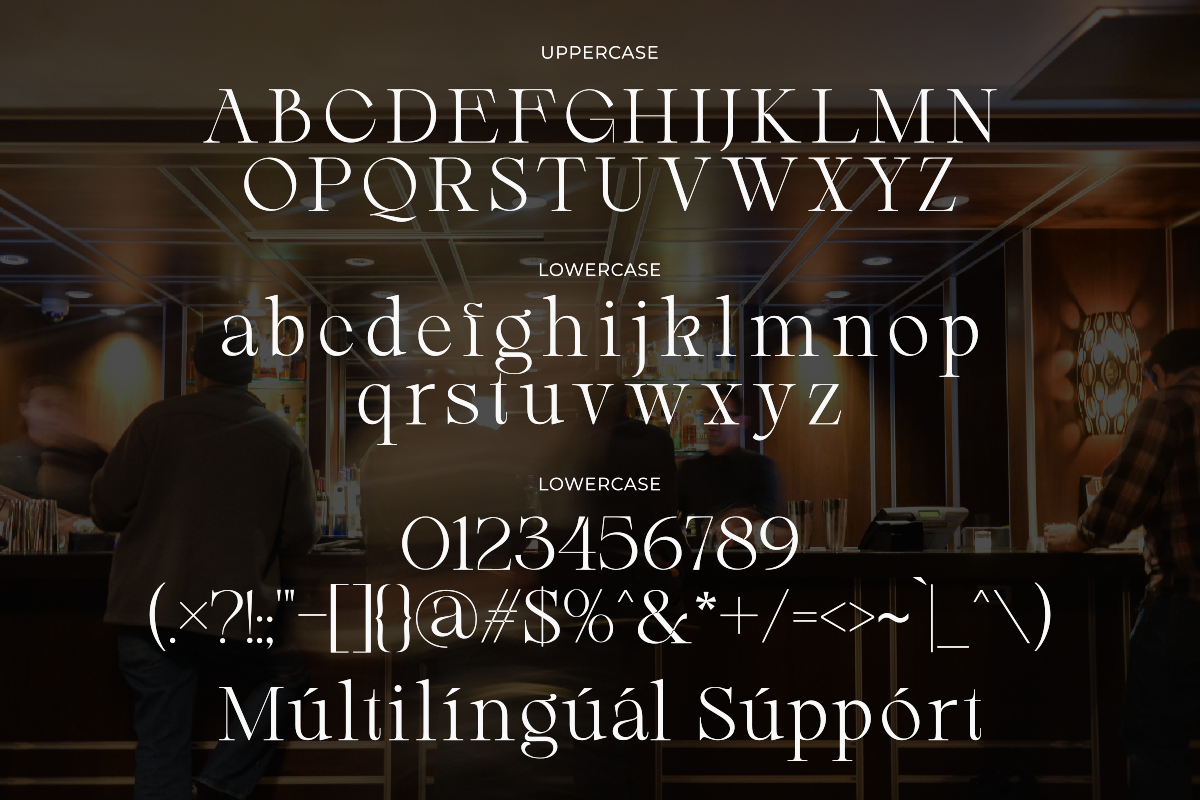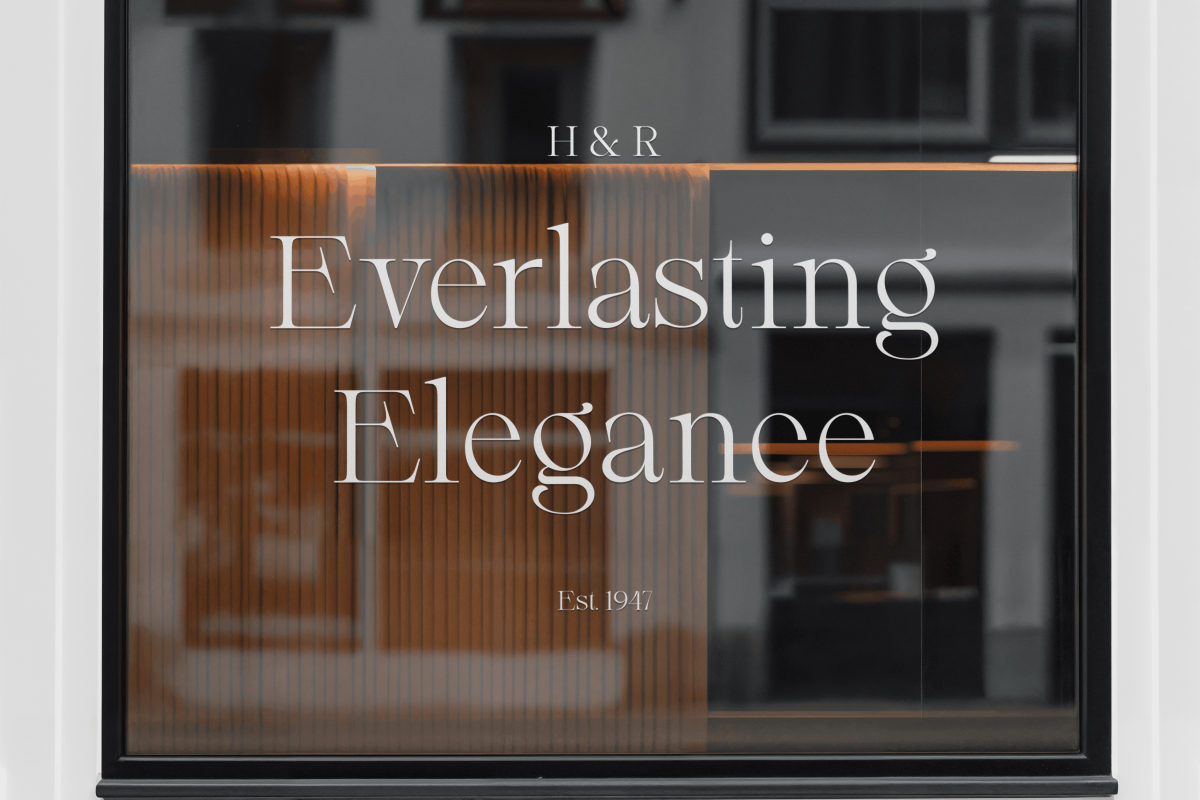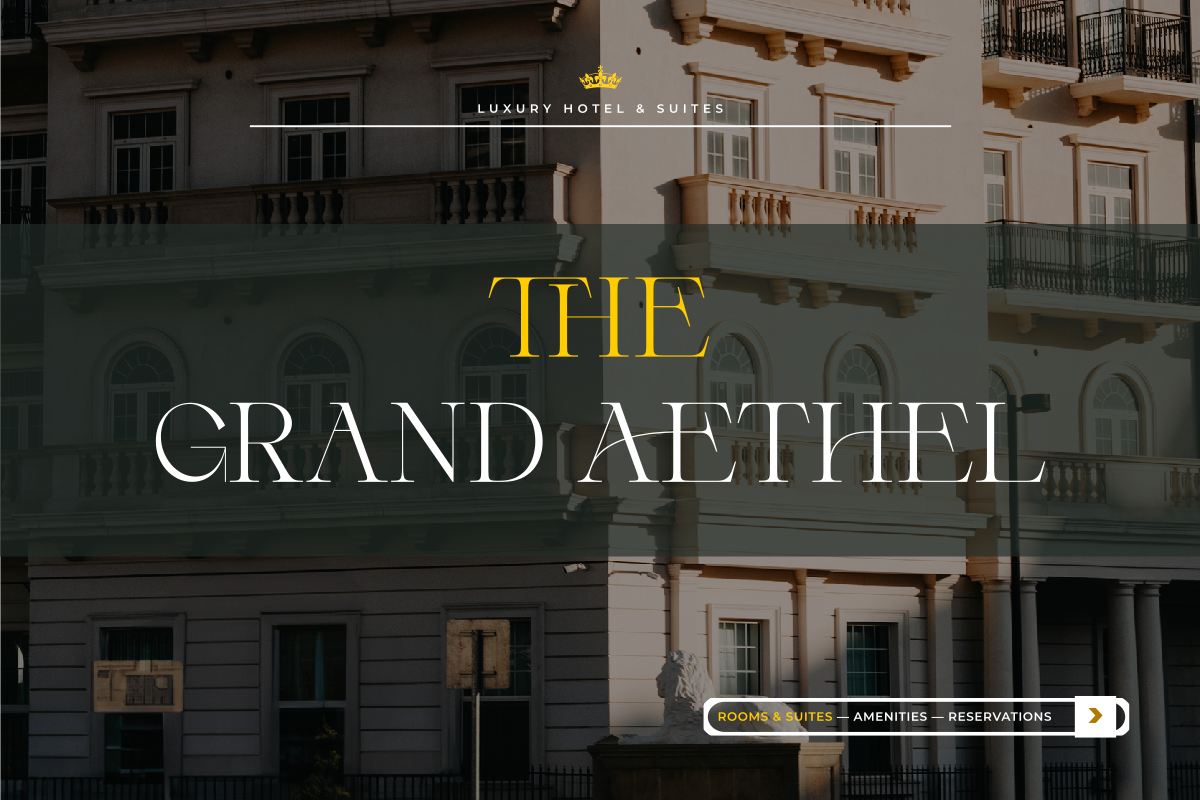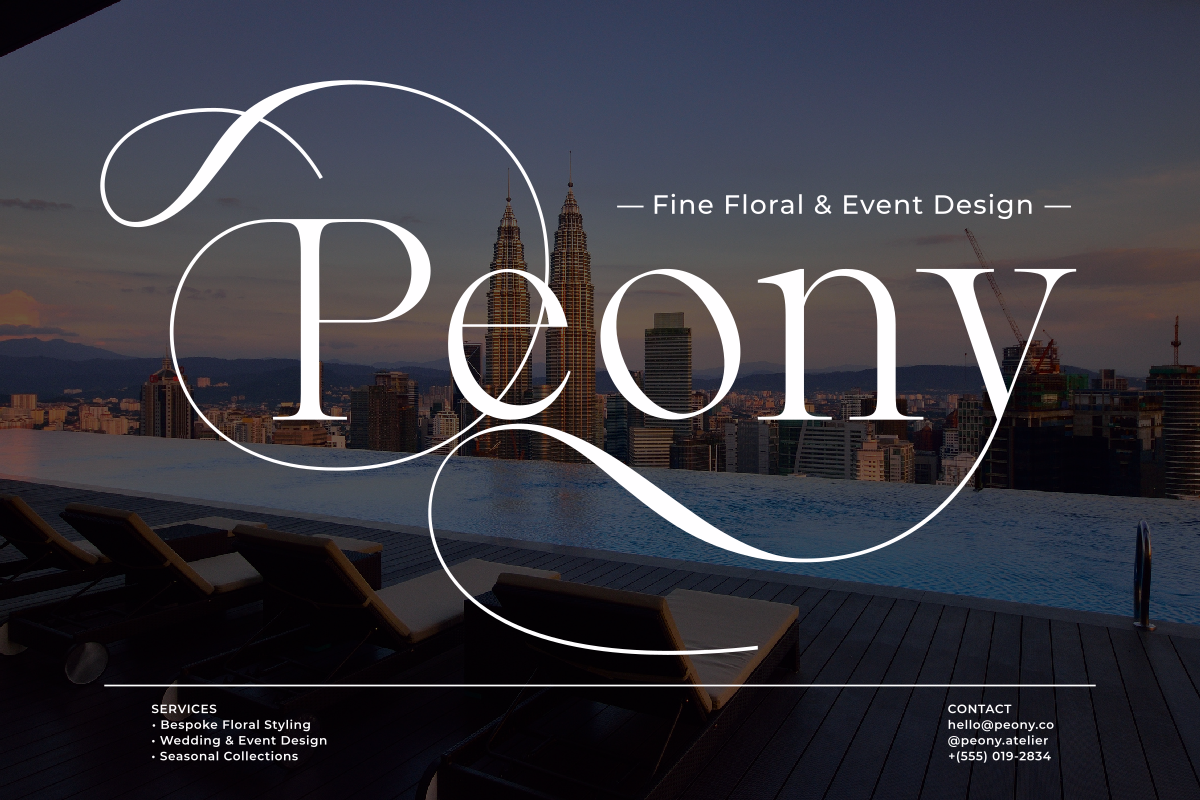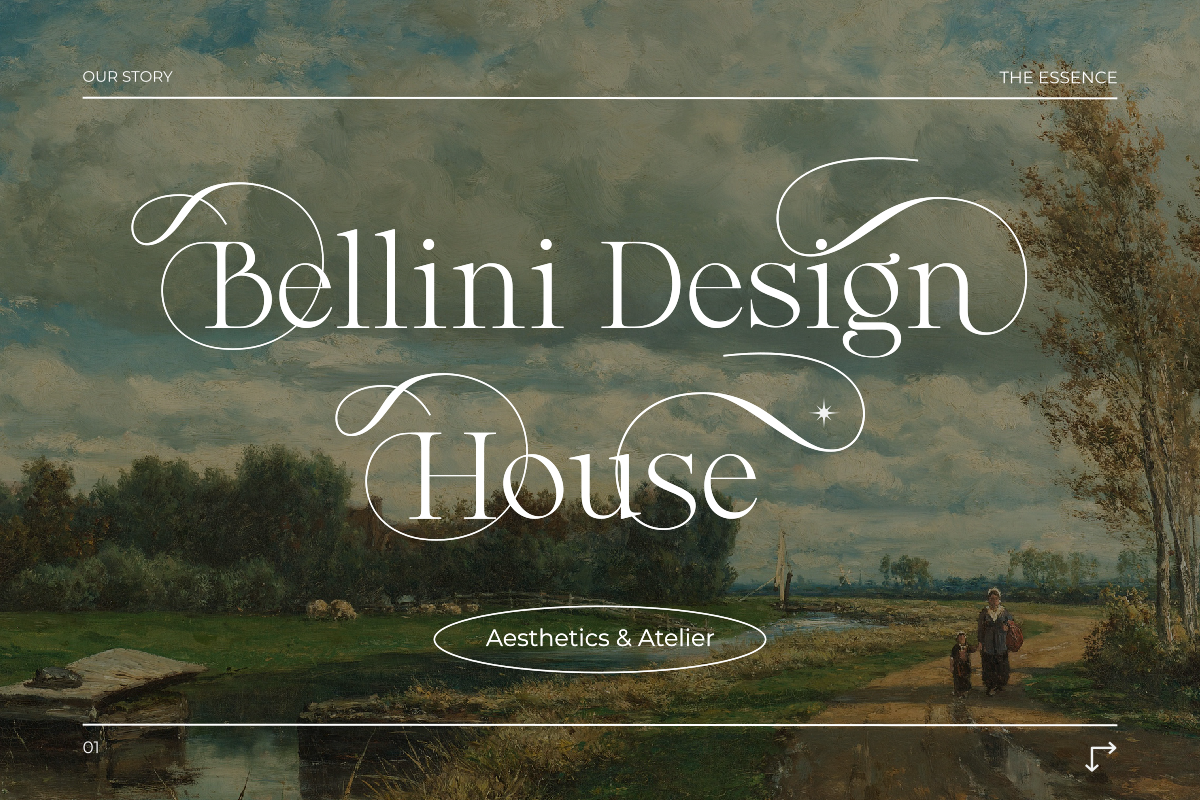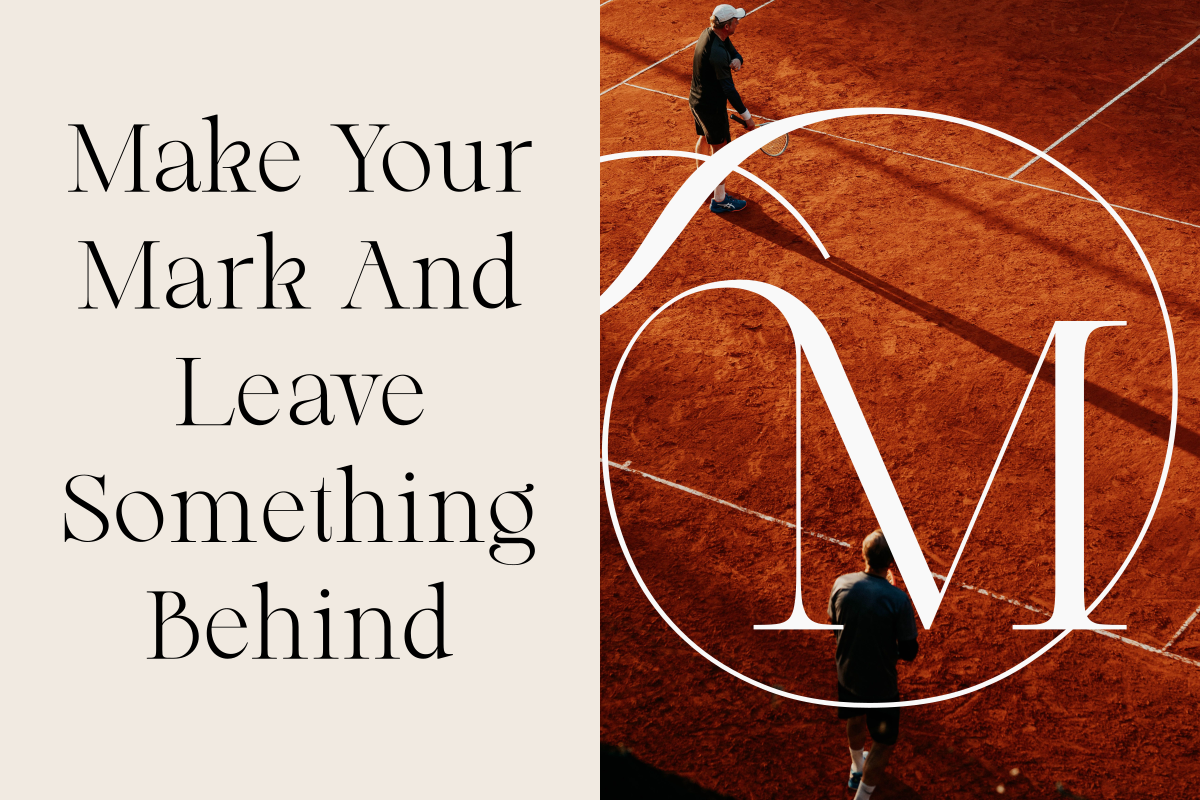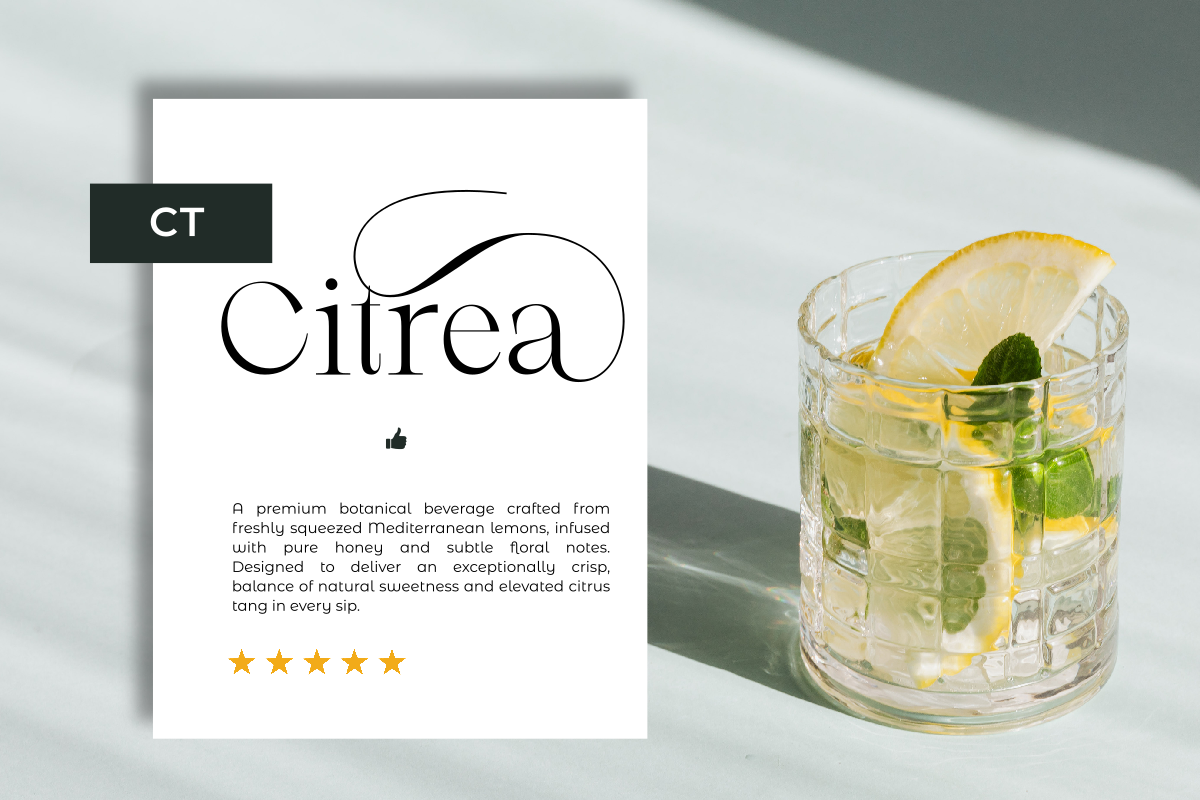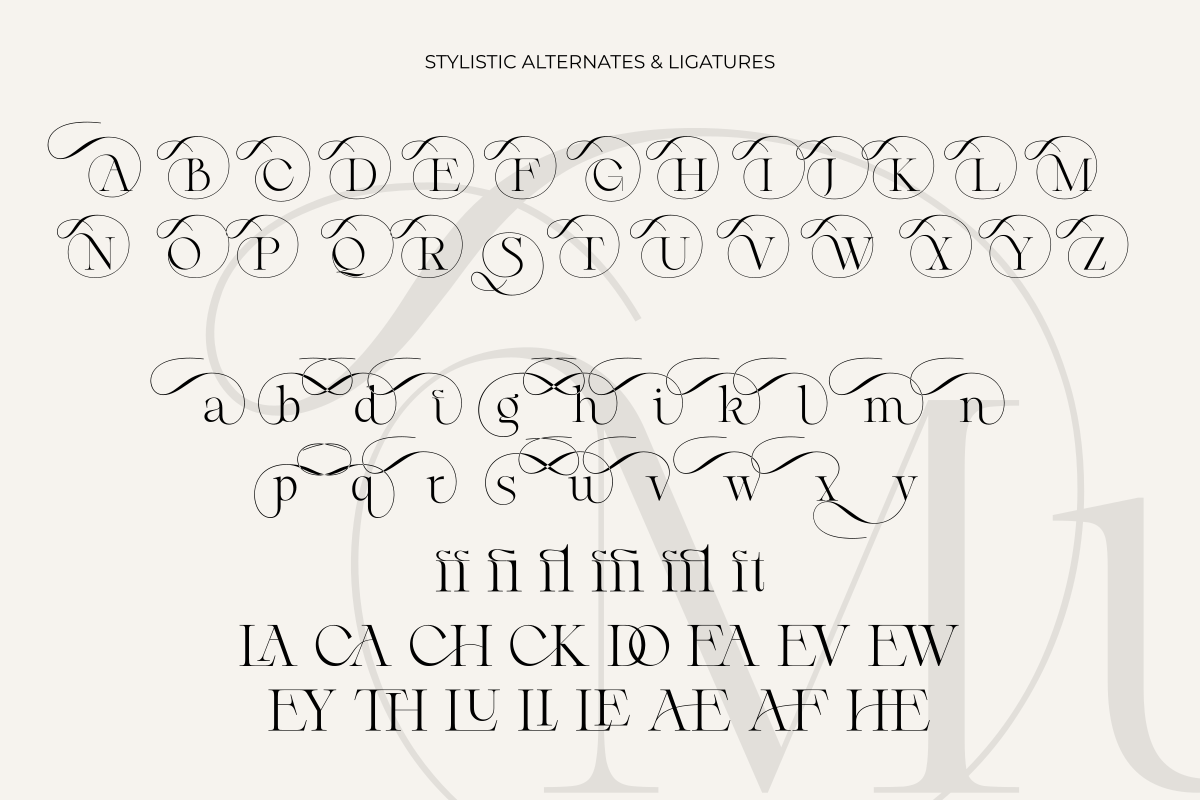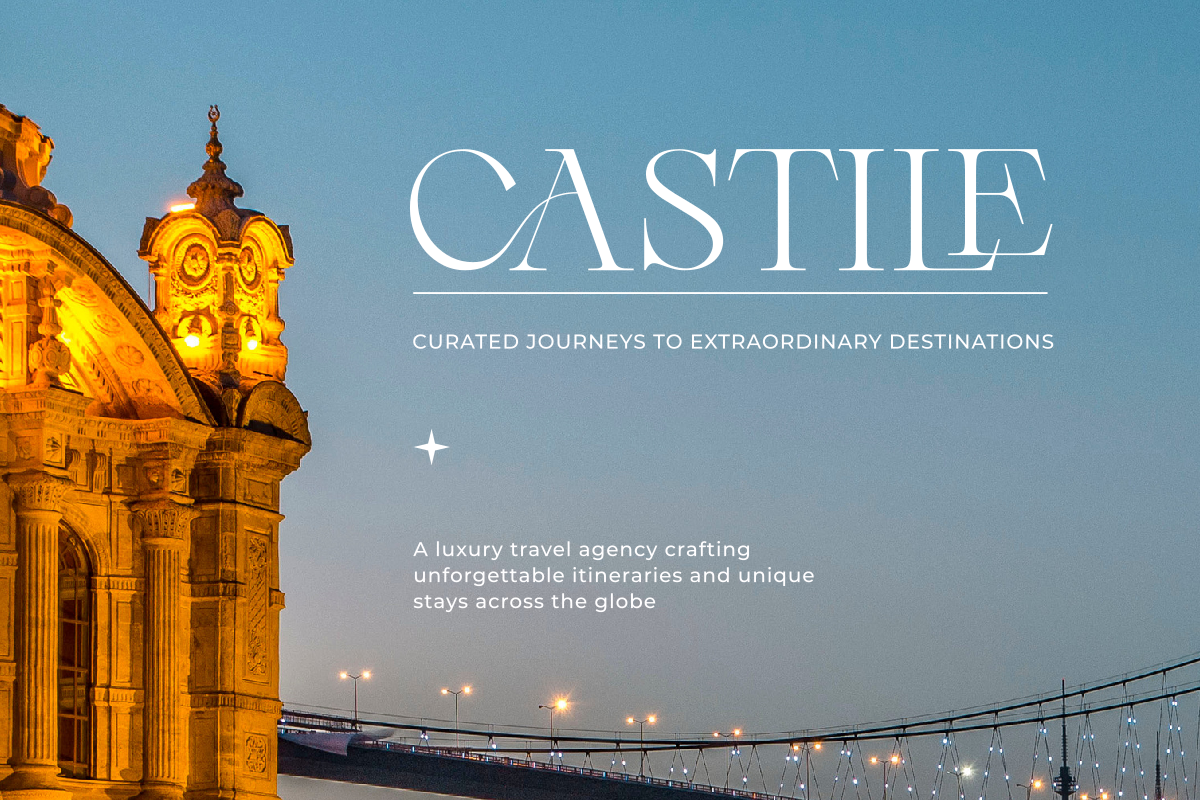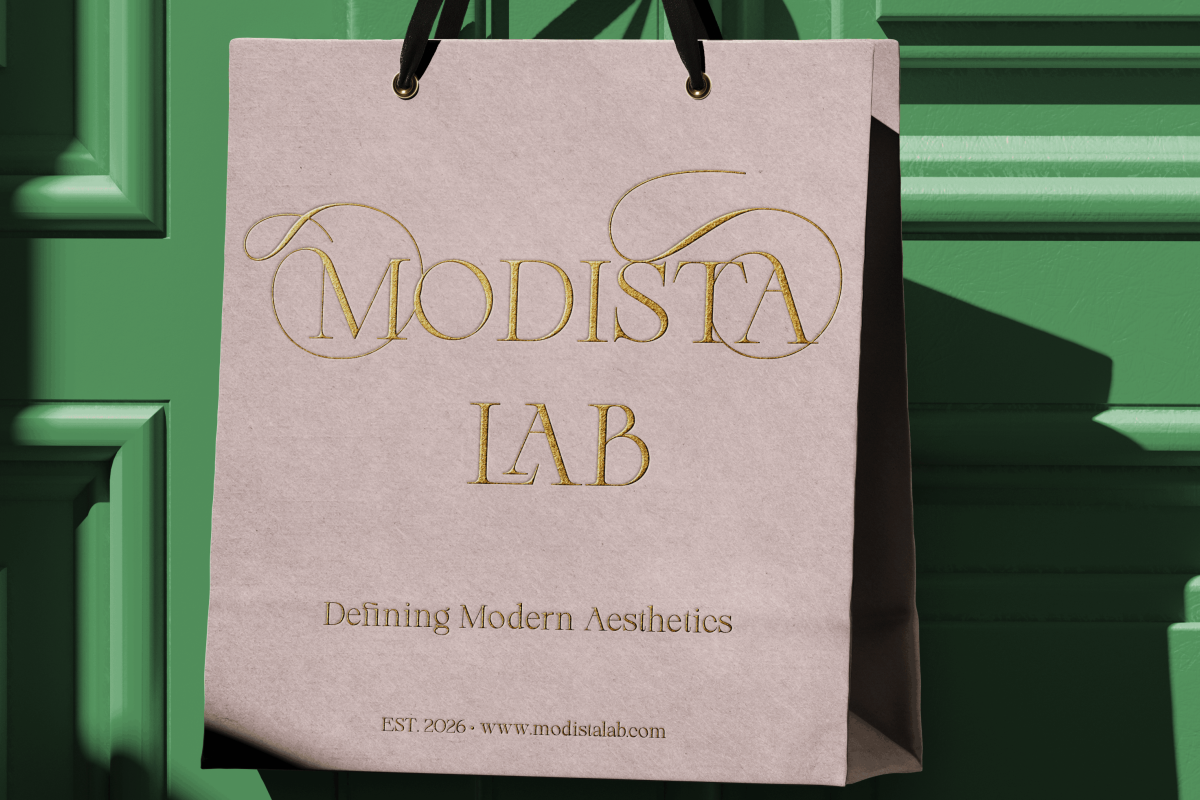
Mustinya
Mustinya is a refined and timeless serif font designed to bring elegance, grace, and subtle sophistication to your creative projects. Crafted with delicate curves and high visual contrast, Mustinya seamlessly blends classic typographic aesthetics with a clean modern feel.
This font family features 2 essential styles: Regular and Italic. The Regular style carries a poised and structured presence, while the Italic style adds a fluid, poetic rhythm—making them the perfect duo for expressive typography and harmonious layouts.
– Standard glyphs
– Multilingual
– Symbols and Number
_ Alternates & Ligatures